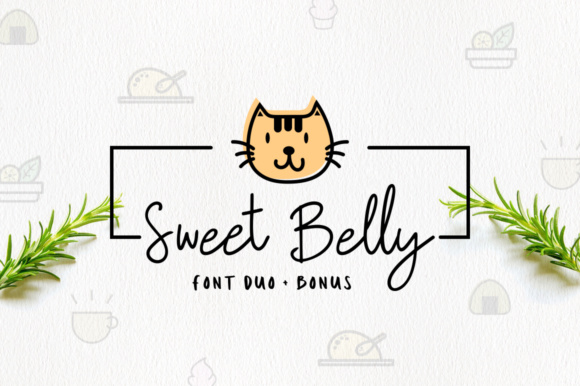
Sweet Belly Duo Font: The Perfect Combination for Your Logo
The world of typography is vast and diverse, with numerous fonts available for various design needs. When it comes to creating a logo, selecting the right font can make all the difference. A well-chosen font can elevate your brand’s identity and convey its message effectively. In this article, we’ll explore the Sweet Belly Duo Font, a charming combination of two fonts that can help you create a stunning logo.
What is Sweet Belly Duo Font?
Sweet Belly Duo Font is a unique package that includes two fonts, carefully crafted to work together in harmony. This duo font is designed to provide a versatile and creative solution for designers, entrepreneurs, and small businesses looking to create a professional logo. The Sweet Belly Duo Font is perfect for those who want to add a touch of sweetness and elegance to their brand’s identity.
Key Features of Sweet Belly Duo Font
- Two fonts in one package: The Sweet Belly Duo Font includes two complementary fonts that can be used together to create a cohesive look.
- Cute and elegant design: The fonts are designed with a playful and sophisticated style, making them perfect for logos, branding, and marketing materials.
- High-quality and versatile: The fonts are crafted with high-quality lines and curves, ensuring they look great in various formats, from business cards to billboards.
- Easily customizable: The Sweet Belly Duo Font can be easily edited and customized to fit your brand’s unique needs.
Benefits of Using Sweet Belly Duo Font
Using the Sweet Belly Duo Font can bring numerous benefits to your design projects. Here are some of the advantages of incorporating this font duo into your work:
Why Choose Sweet Belly Duo Font?
- Time-saving: With two fonts in one package, you can save time and effort in searching for the perfect font combination.
- Consistency: The Sweet Belly Duo Font ensures consistency in your brand’s typography, which is essential for building a strong brand identity.
- Creativity boost: The unique combination of two fonts can inspire creativity and help you create a distinctive logo that stands out from the crowd.
- Test and iterate: Test your logo in different formats and iterate on the design until you’re satisfied with the result.
In conclusion, the Sweet Belly Duo Font is an excellent choice for anyone looking to create a stunning logo. With its unique combination of two fonts, cute and elegant design, and high-quality lines and curves, this font duo is perfect for designers, entrepreneurs, and small businesses. By following the tips and tricks outlined in this article, you can create a professional logo that elevates your brand’s identity and conveys its message effectively.